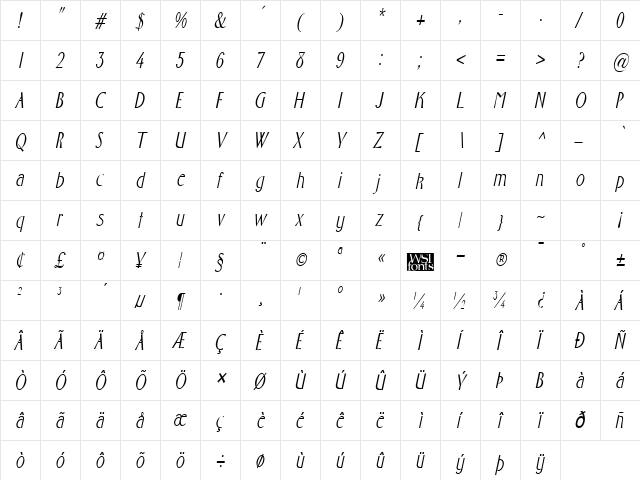
FosterCondensed Italic Font Preview
Design Context for FosterCondensed Typeface
FosterCondensed takes a measured approach to typography — its balanced proportions and neutral character make it a reliable workhorse for both digital and print work. The slanted form adds forward momentum and visual energy. The condensed width makes it efficient for tight spaces without sacrificing legibility.
Pro Tip: Try FosterCondensed for annotation and caption copy alongside an upright companion — the contrast in angle creates a dynamic but ordered typographic system.